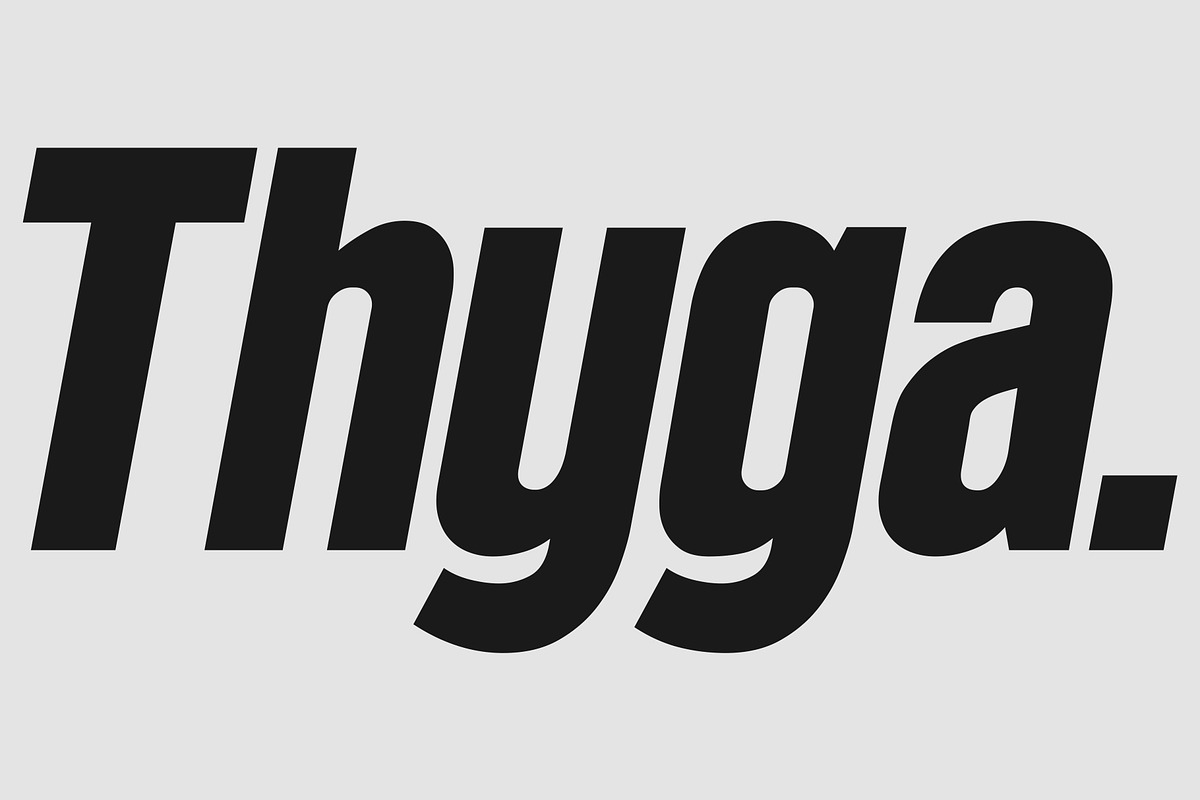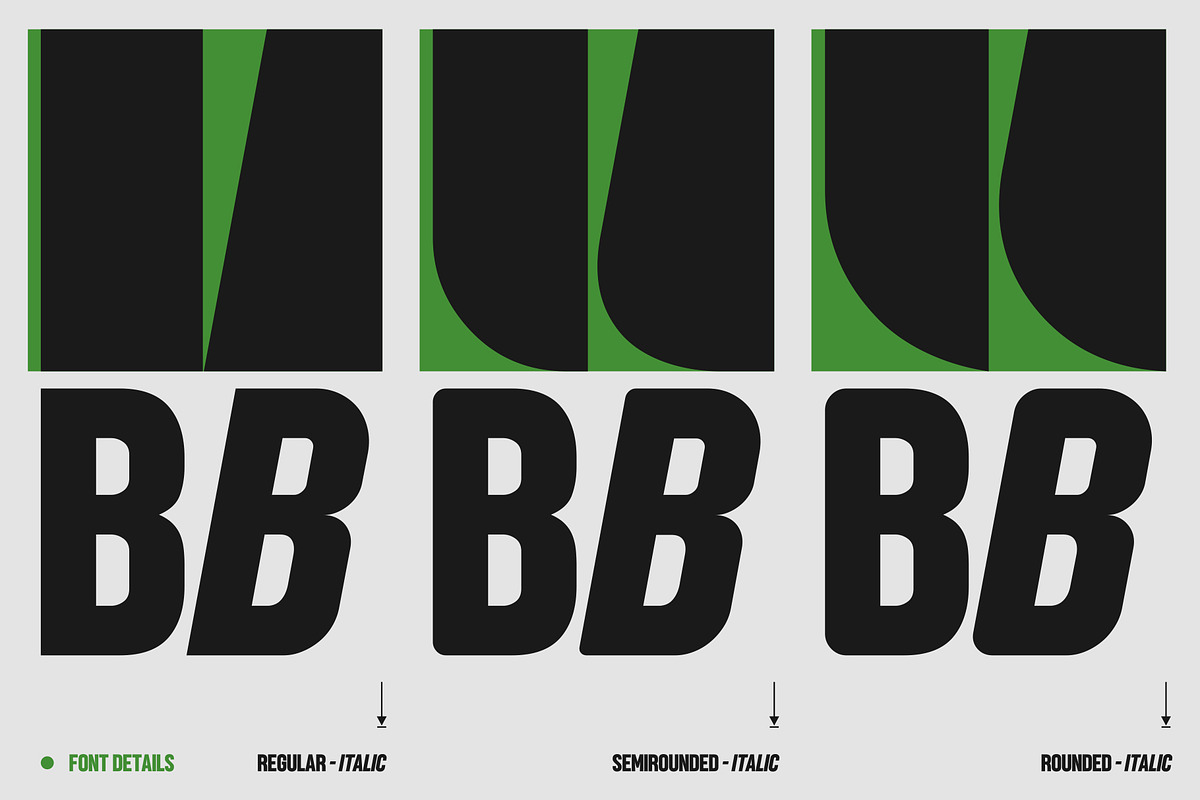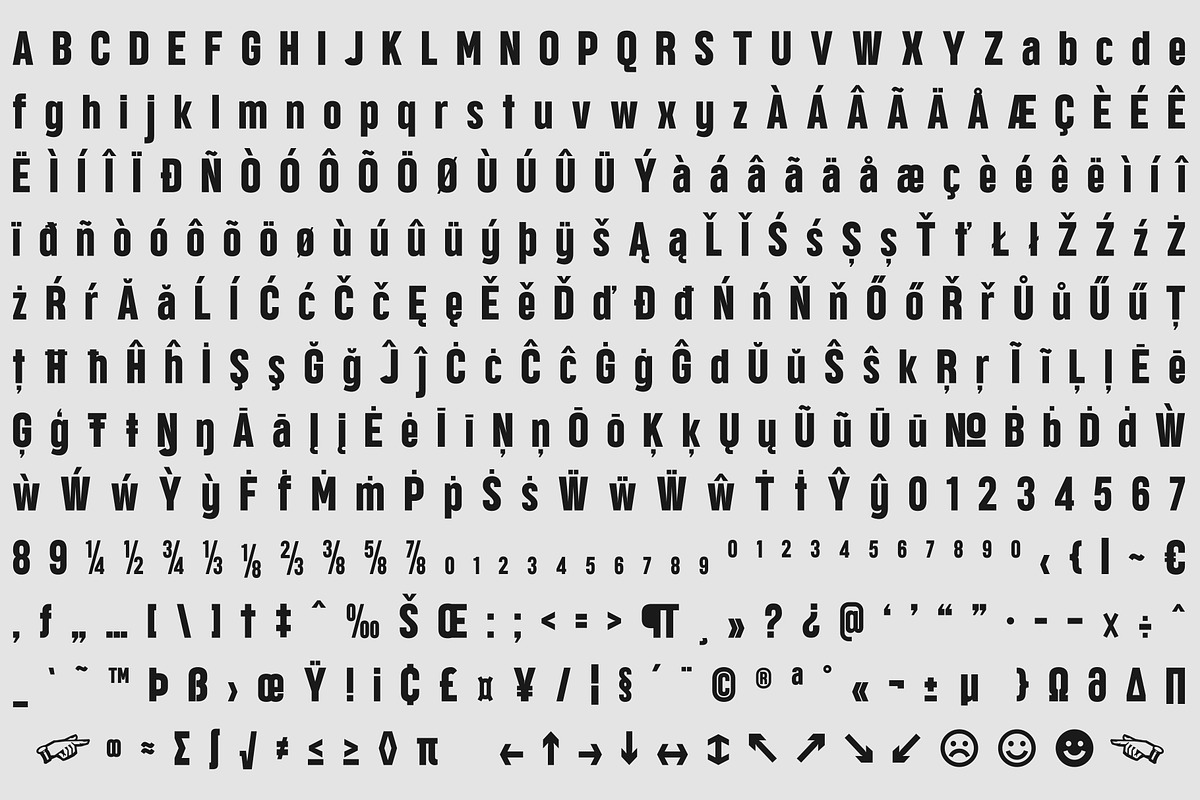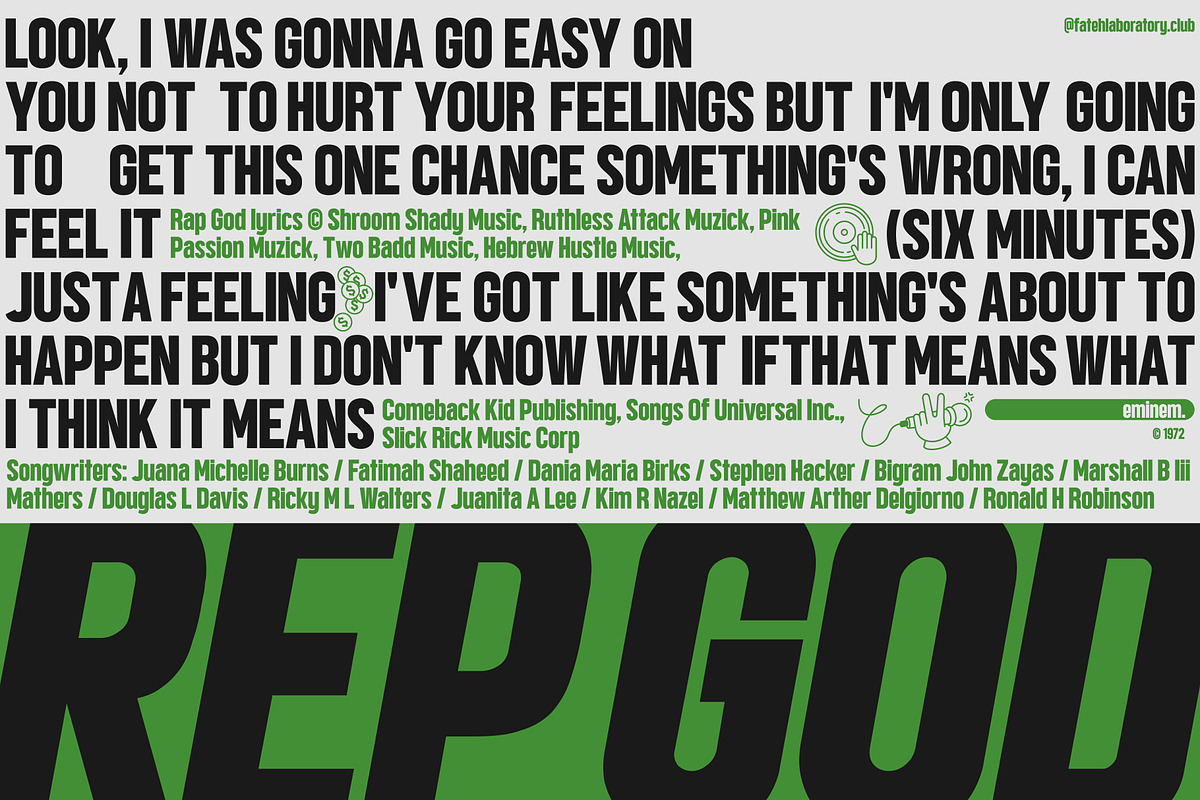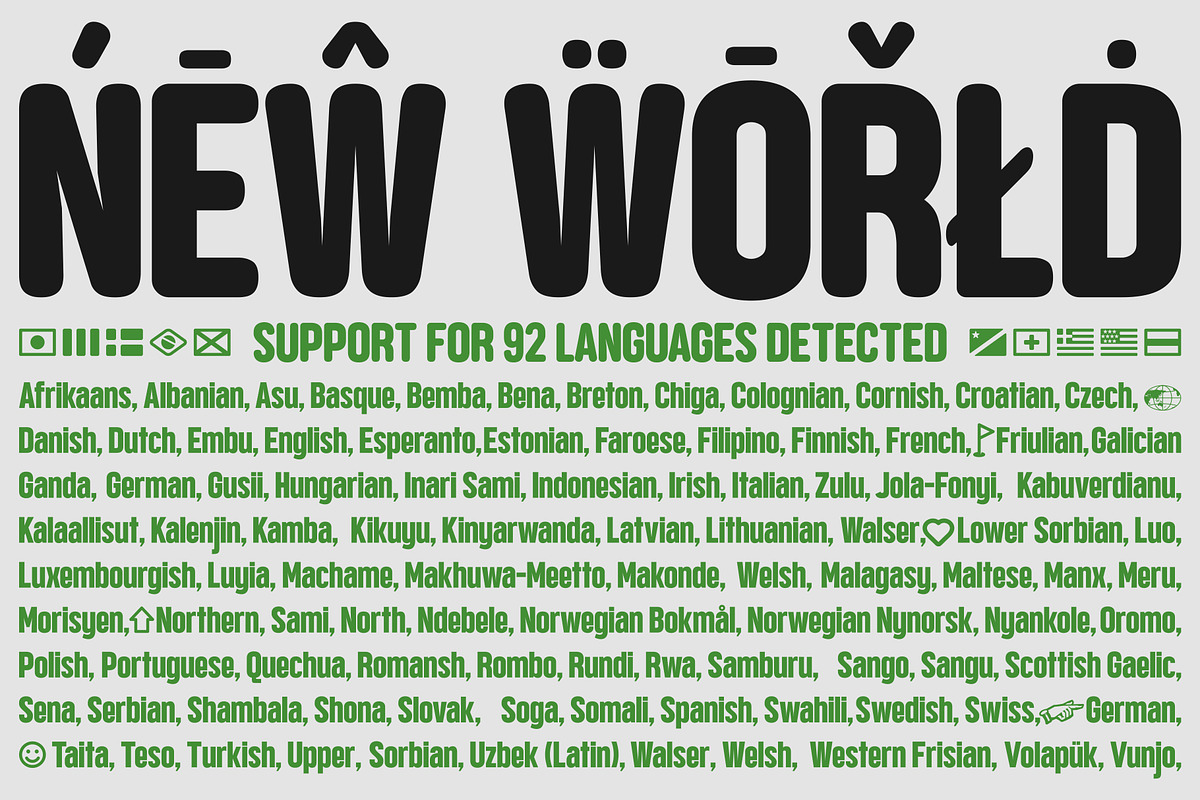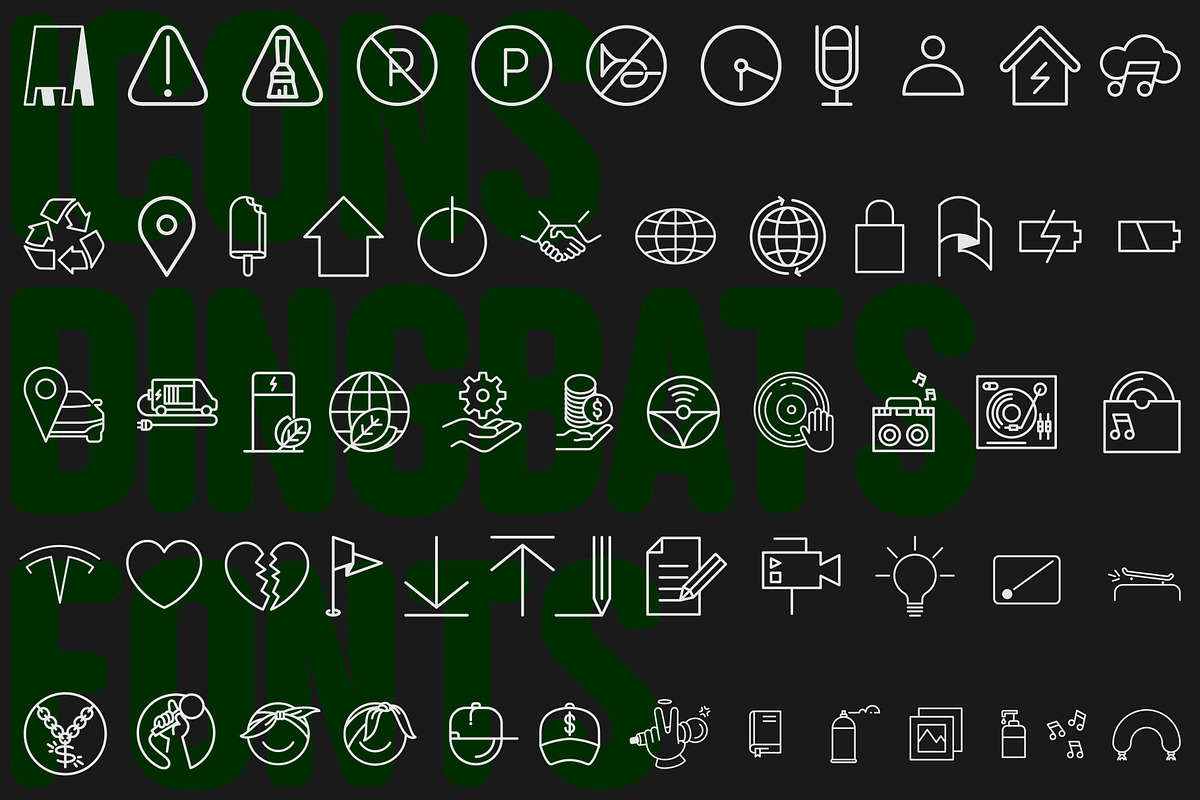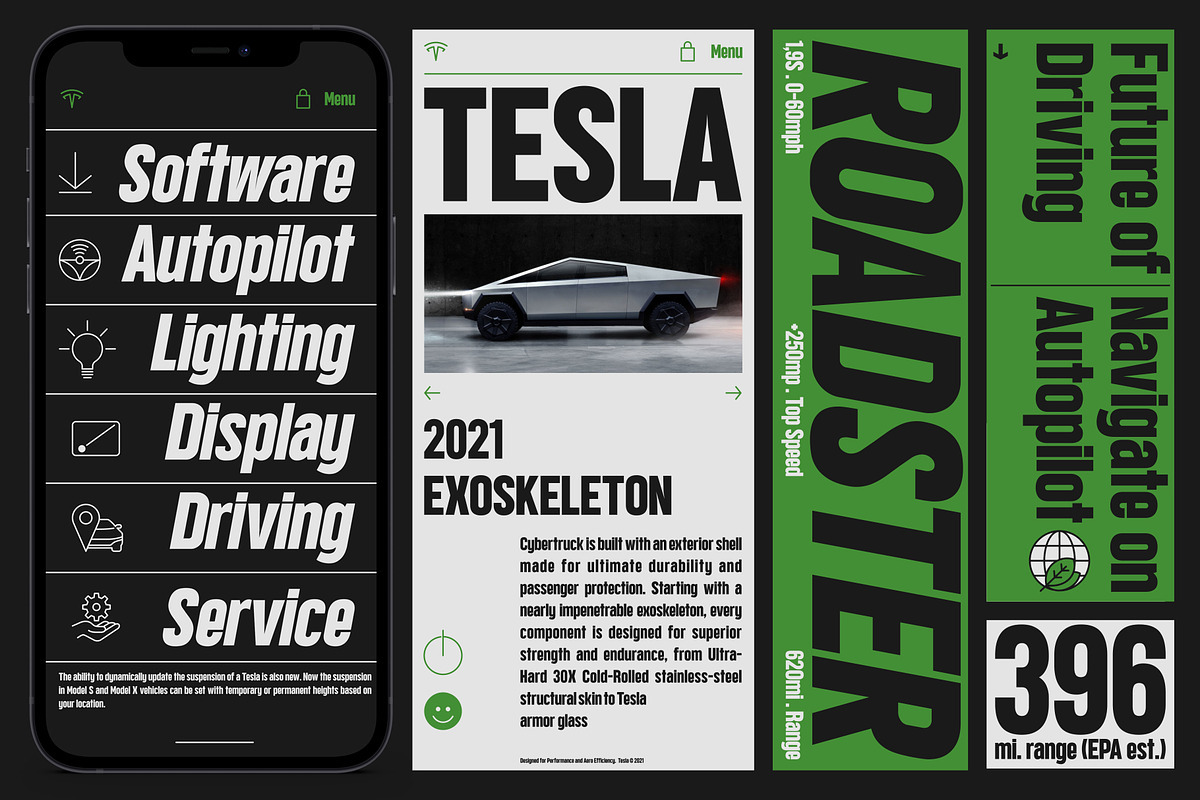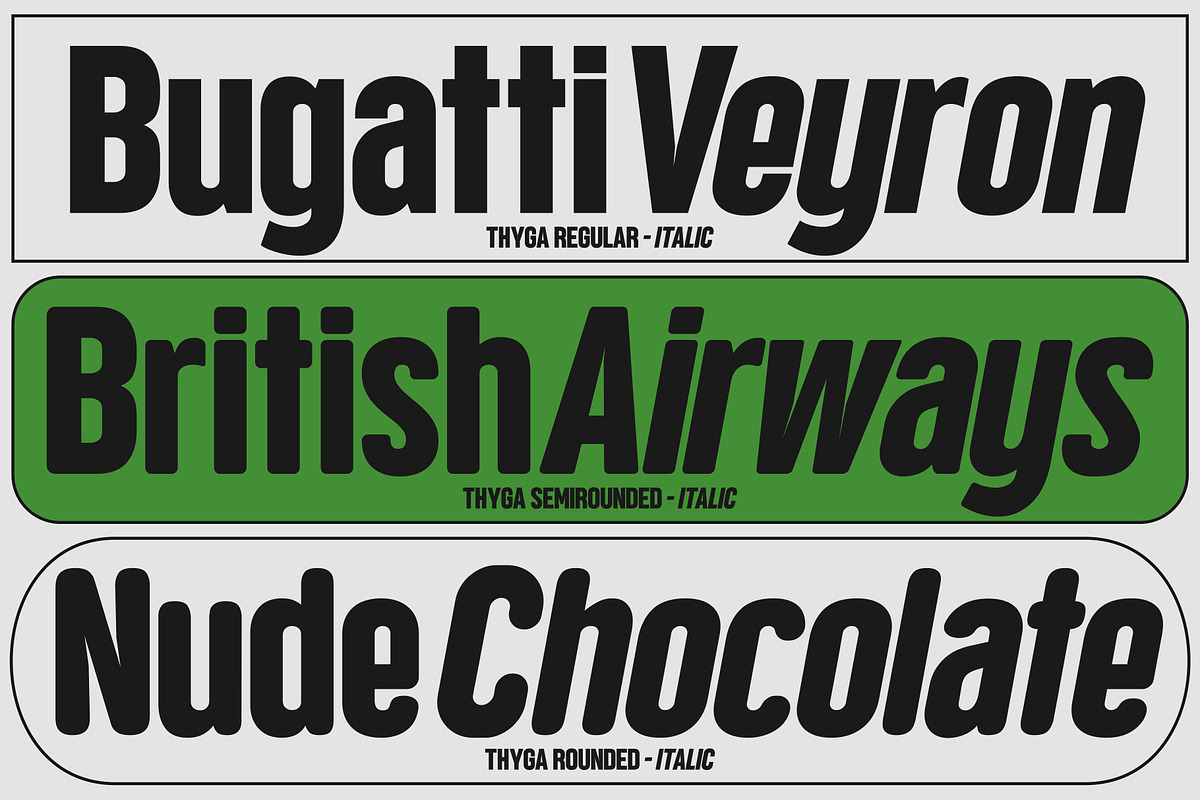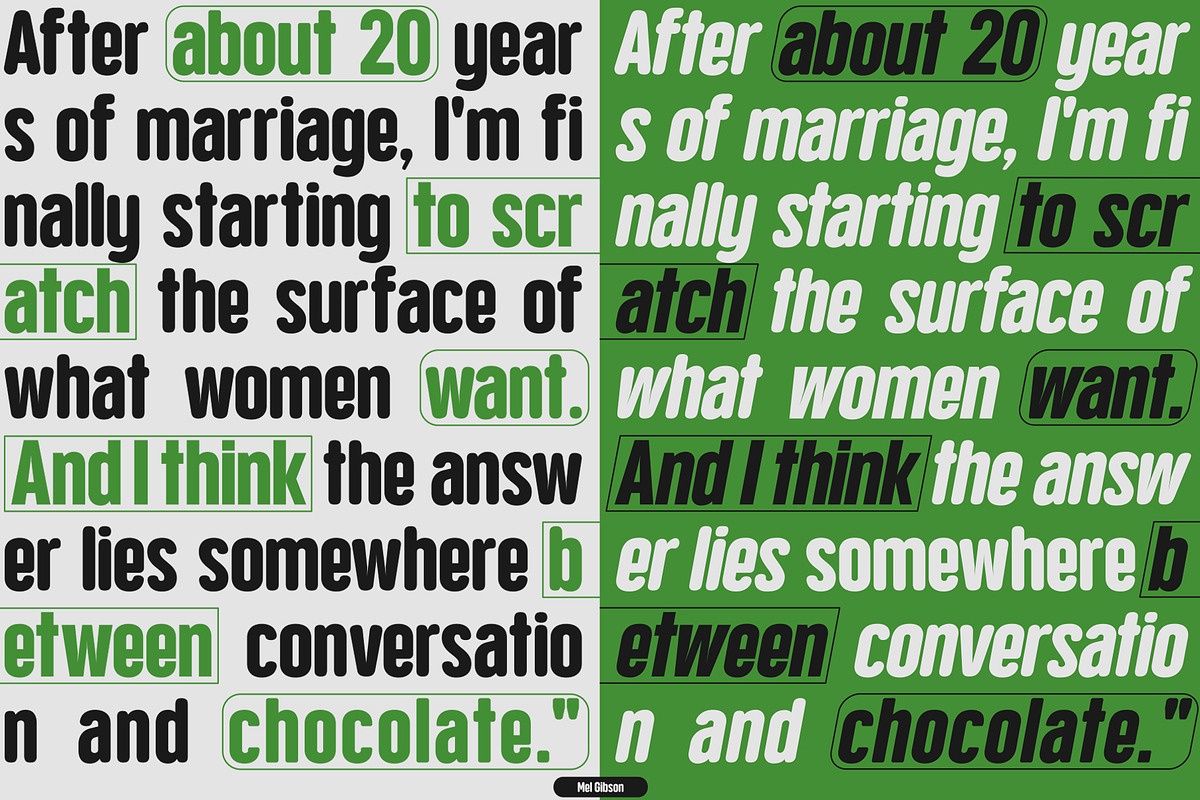
Thyga | Modern Sans Serif Fonts
Thyga is our newest font, this is good news for those of you who are designing your best work and your biggest projects. Thyga has a very strong and elegant character, comes with the support of three styles in one family and is supported by 92 languages. Thyga is the best answer for you right now.
One more good news is. Thyga has Italic font and dingbats Icon font!. Be the first to use this professional and premium Thyga font!